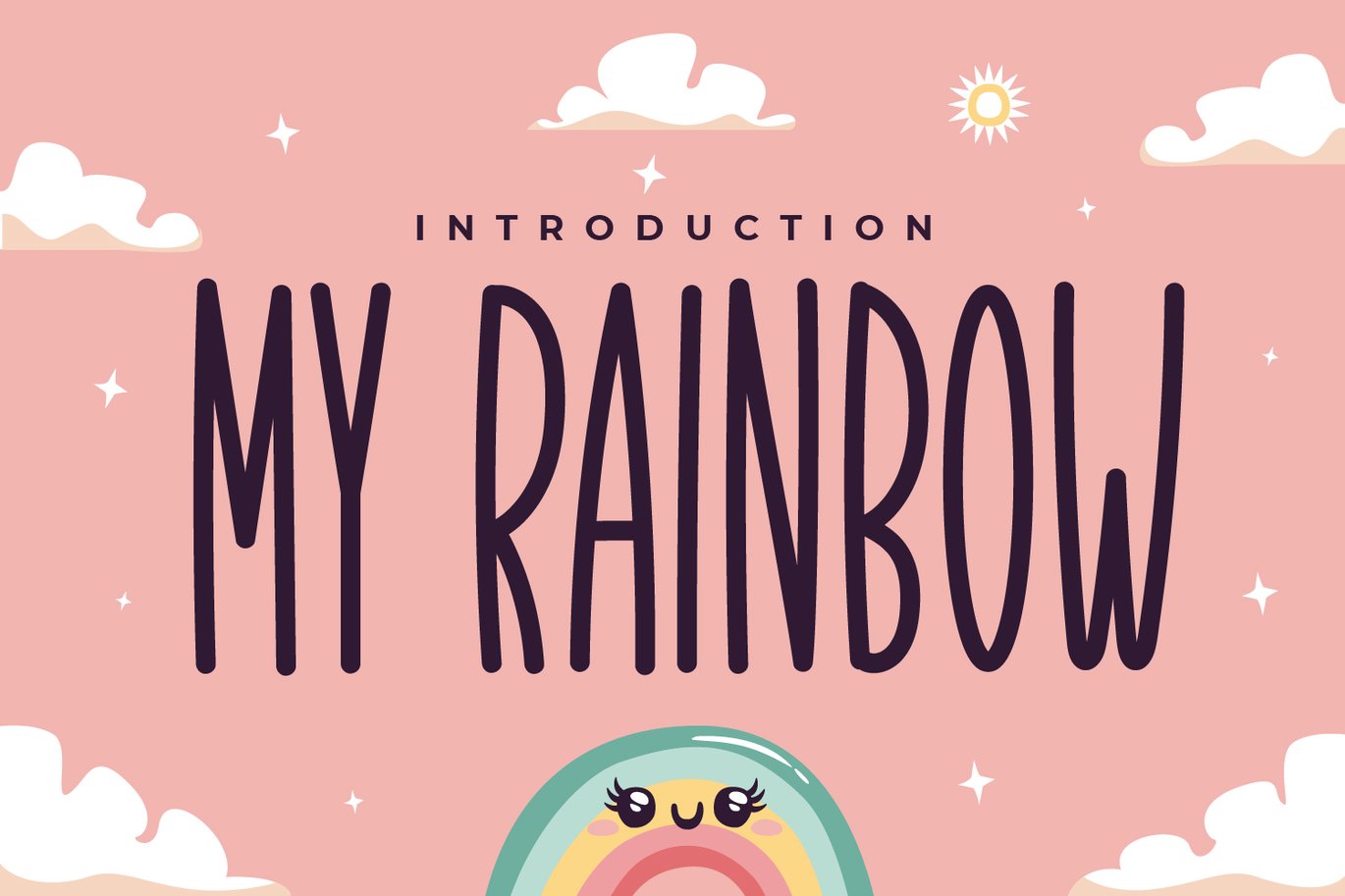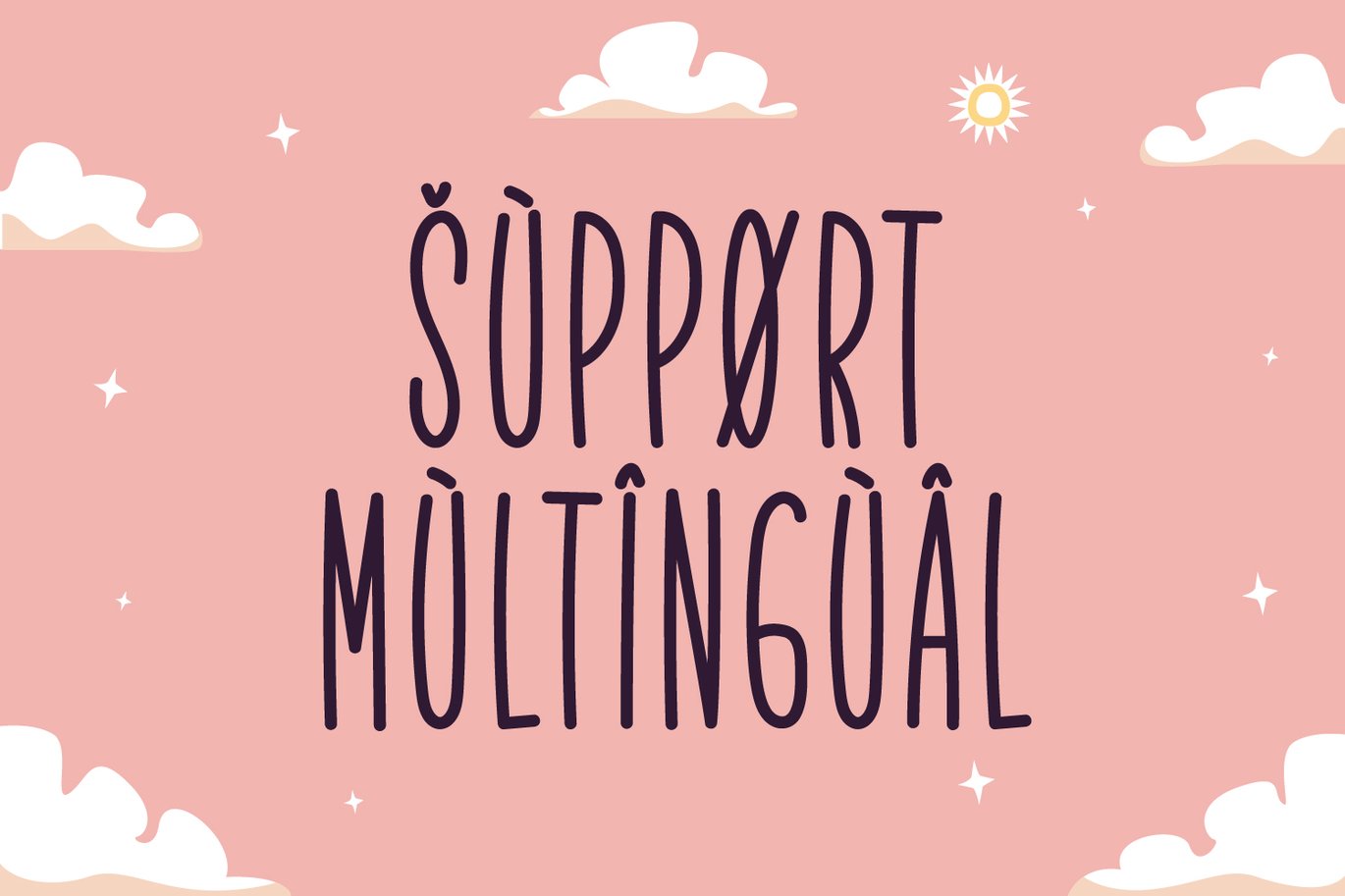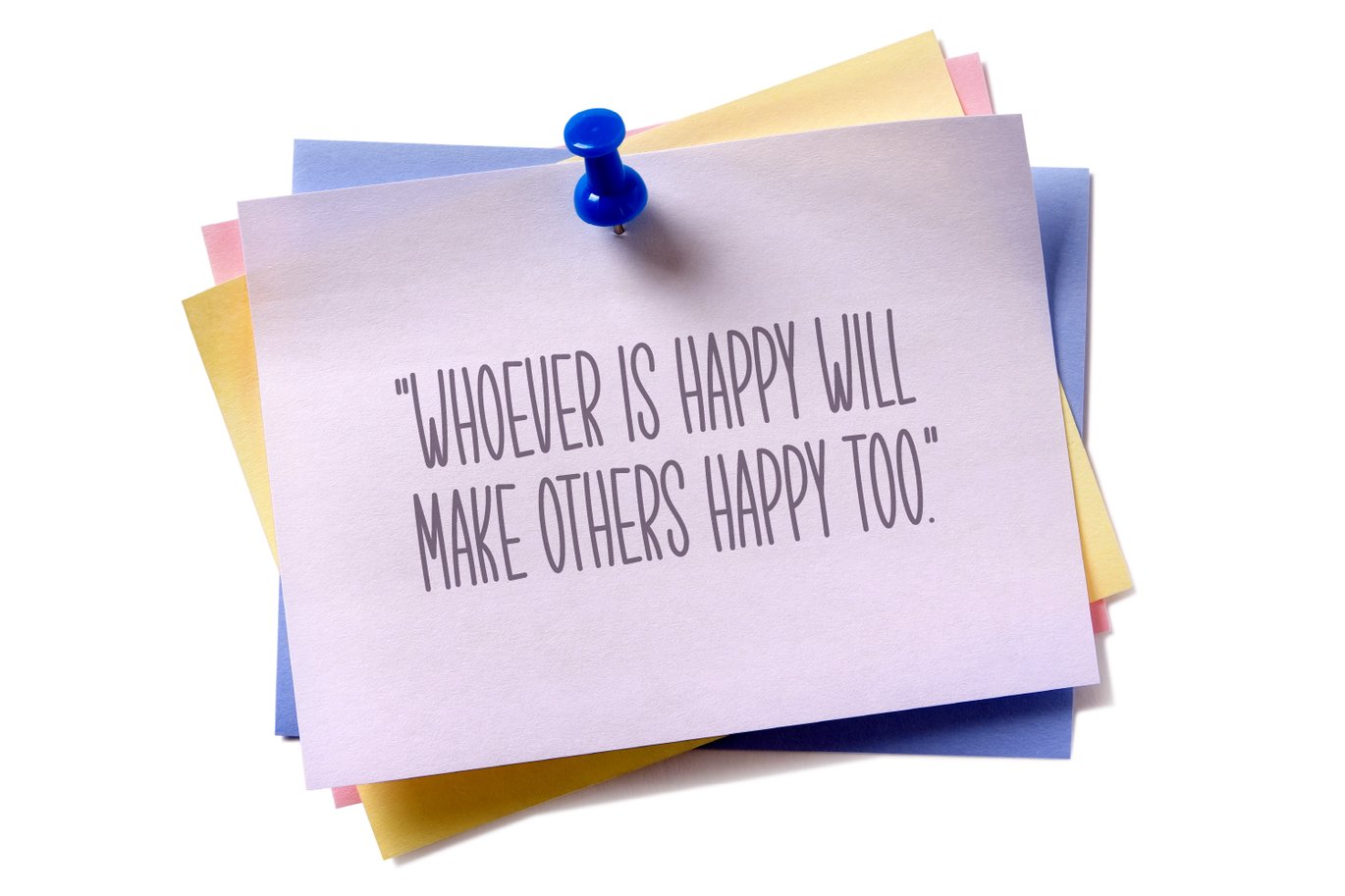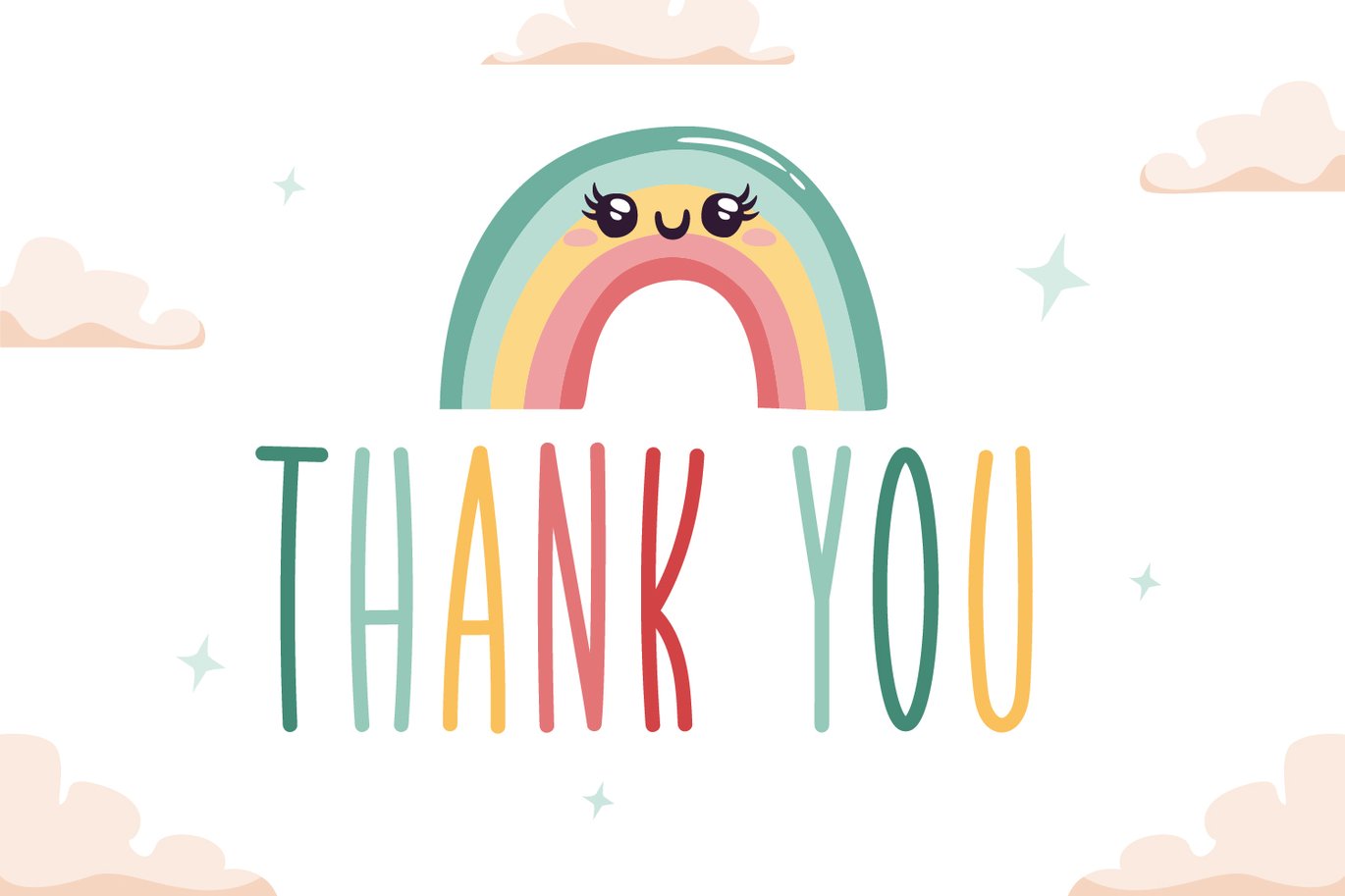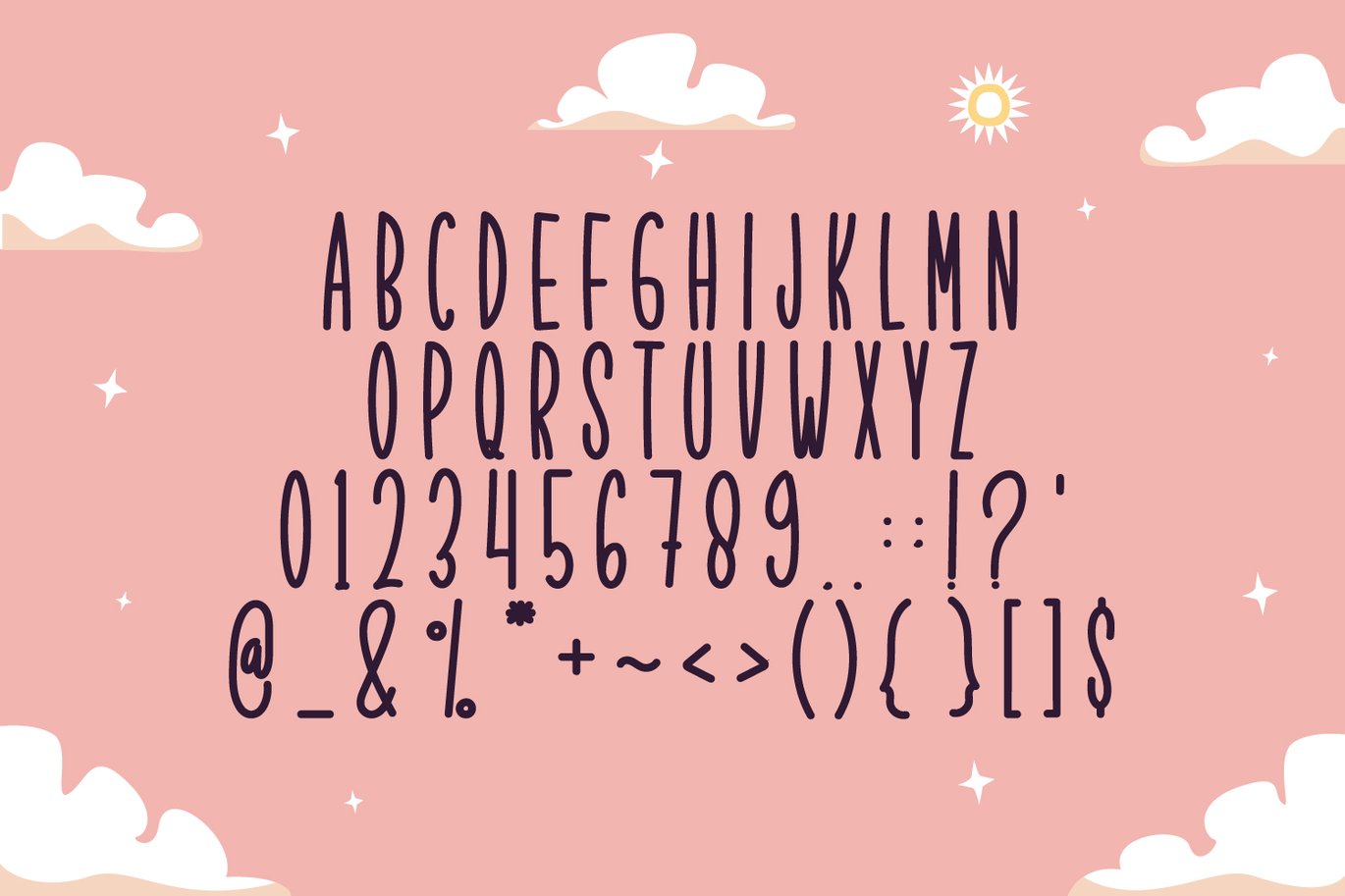
My Rainbow – Handwritten Display Font
Introducing My Rainbow – Handwritten Display Fontt
My Rainbow is a cute, thin and tall handwritten font. No matter the topic, this font will be an incredibly asset to your fonts’ library, as it has the potential to elevate any creation.